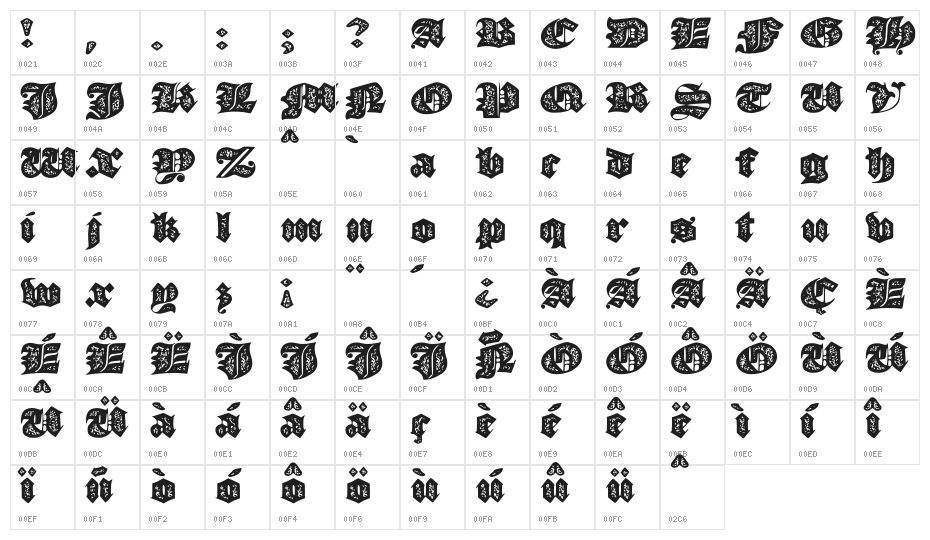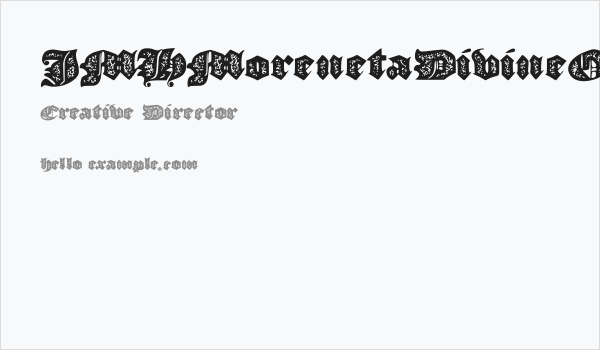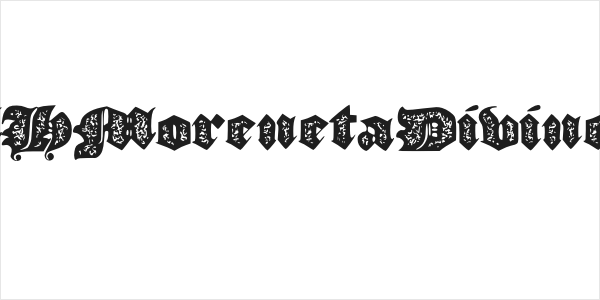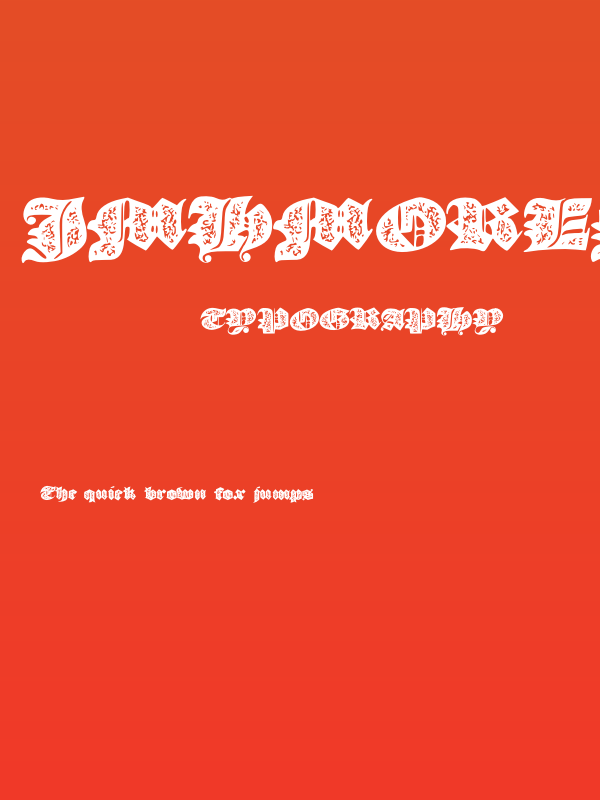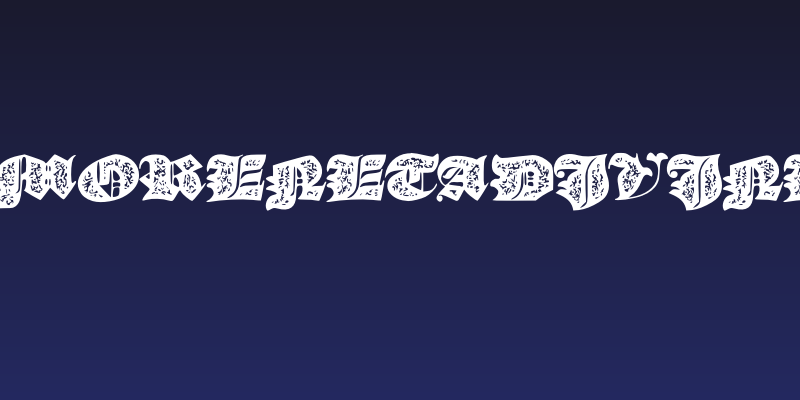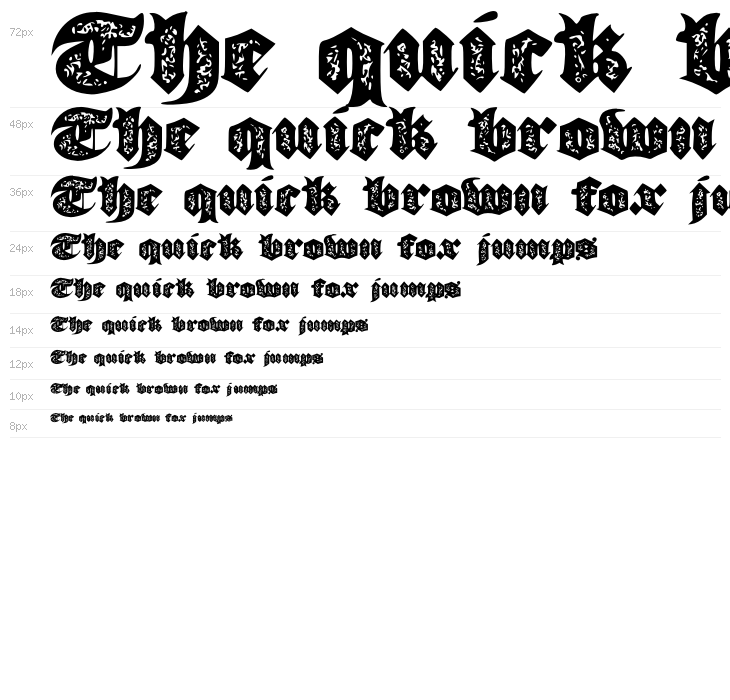
JMHMorenetaDivineOld Font
JMHMorenetaDivineOld Description
This font exhibits a classic blackletter style, characterized by its intricate and ornate design. The letters are bold and heavily stylized, featuring sharp angles and elaborate flourishes that give it a distinctly medieval appearance. The uppercase and lowercase letters maintain a consistent aesthetic, with each character adorned with decorative elements that enhance its gothic appeal. The numerals and special characters follow the same ornate pattern, ensuring a cohesive look across all glyphs. This font is ideal for projects that require a historical or traditional touch, offering a dramatic and eye-catching presence.
Overall StyleDecorative, Gothic
Use CaseLogos, Headlines, Decorative text
Proposed ProjectsIdeal for historical documents, event invitations, book covers, and branding that requires a traditional or gothic aesthetic.